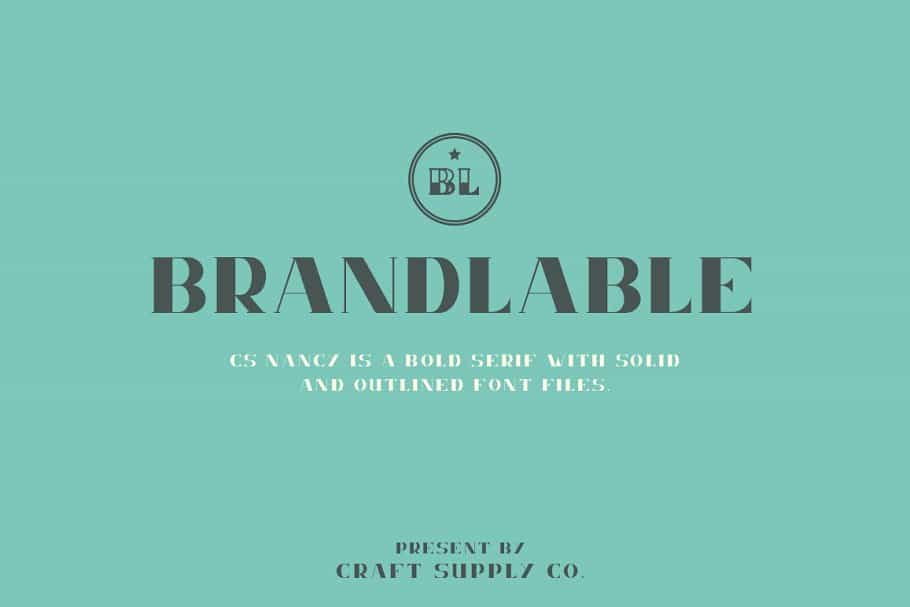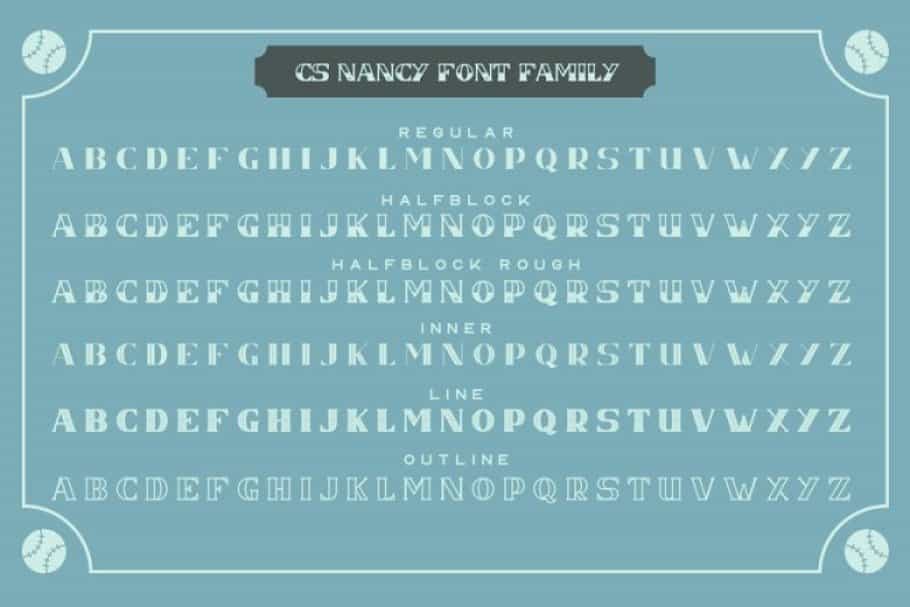
Discover CS Nancy Font Family, part of the Serif Display Decorative collection—a versatile and unique font perfect for adding a personal touch to your projects. Download it for free and enjoy crafting designs with style, from invitations to social media posts. This font is available exclusively for personal use, giving you the freedom to create without limits. Unlock your creativity with CS Nancy Font Family today!
CS Nancy Font Family comprises 6 Style Fonts. is a nice looking serif font that can be utilized for almost any kind of design project such as print materials. By using your creativity, your project will come alive and vivid like never before with one of the CS Nancy Font Family.